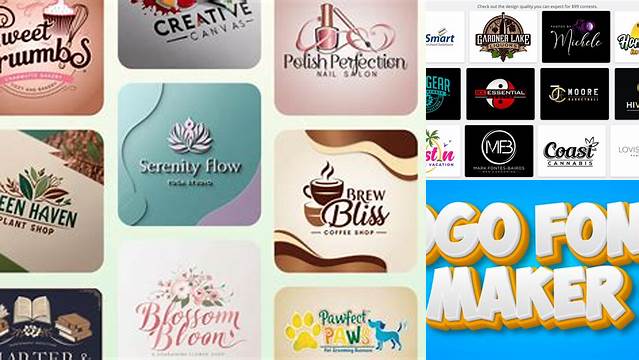
Best Free Logo Font Generator: Create Stunning Logos
Creating a logo can feel like a big deal, right? You want something that perfectly represents your brand, and a huge part of that is choosing the right font. But let's be real, not everyone has the budget for fancy design software or professional designers. That's where free logo font generators come in handy! They're a fantastic way to experiment with different typography styles and find the ideal font for your logo, all without spending a dime. We’re going to dive deep into the world of the best free logo font generators, showing you how to use them and offering tips to make your logo stand out.
1. Understanding the Importance of Font Choice in Logo Design
So, why is choosing the right font so crucial? Think of it this way: your font is the voice of your brand. It communicates personality, professionalism, and even the overall feel of your business. A playful, rounded font might be perfect for a children's brand, but it would look totally out of place for a serious financial institution. Choosing the right font helps create a strong and lasting impression on your audience. When diving into logo design, the importance of font choice cannot be overstated. Your font is not just a visual element; it's a crucial part of your brand's identity. The right font can convey the personality and values of your business. A font that is too casual for a formal business or too formal for a casual brand can create a disconnect with your target audience. Therefore, understanding the nuances of different fonts and how they can impact your brand perception is vital. From the sleek lines of sans-serif fonts to the elegant curves of serif fonts, each style brings a unique flavor to your logo. Choosing the right font ensures your logo is not only visually appealing but also communicates the right message. Think about how fonts like Helvetica communicate modernity and efficiency, while script fonts can add a touch of sophistication and personal touch. For example, a tech startup might opt for a clean, minimalist sans-serif font to project innovation and simplicity, while a luxury brand could choose a classic serif font to evoke tradition and elegance. By considering these factors, you can make an informed decision that aligns with your brand's identity and resonates with your target audience.
2. Top Free Online Logo Font Generators
Okay, let's get to the good stuff! There are tons of free online logo font generators out there, but some are definitely better than others. We're talking about tools that offer a wide variety of fonts, are easy to use, and give you options for customization. Some popular options include FontStruct, which lets you build your own fonts from scratch, and online logo makers that incorporate font selection as part of their design process. When looking for the best free online logo font generators, it's essential to consider a few key factors. First, the variety of fonts available is crucial. A good generator should offer a wide range of styles, from classic serif and sans-serif fonts to more modern and decorative options. This allows you to find a font that truly matches your brand's personality and style. Second, ease of use is paramount. The tool should be intuitive and straightforward, allowing you to quickly browse, select, and customize fonts without a steep learning curve. Features like font previews, size adjustments, and color options can significantly enhance the user experience. Third, the quality of the fonts matters. While many free generators offer a plethora of options, not all fonts are created equal. Look for generators that provide high-quality fonts that are well-designed and legible. Some popular platforms like Google Fonts, DaFont, and Font Squirrel offer an extensive library of free fonts that can be used with various logo generators. For example, FontStruct is a great option if you want to create a custom font from scratch, giving you complete control over the design. Canva and other online logo makers also incorporate font selection as part of their design process, making it easy to pair fonts with other design elements. By exploring these tools, you can find the perfect font to make your logo stand out.
3. FontStruct: Creating Custom Fonts for Your Logo
FontStruct is a super cool tool that lets you get really creative. It's like playing with digital building blocks to design your own fonts. If you have a specific vision in mind or want a truly unique font that no one else has, FontStruct is the way to go. This level of customization allows your logo to be completely one-of-a-kind. Diving deeper into FontStruct, it’s clear why this platform is a favorite for those seeking custom font solutions. Unlike many free logo font generators that offer pre-designed fonts, FontStruct provides a unique, hands-on approach. It empowers users to build fonts from geometric shapes, making it possible to create truly distinctive typefaces. This level of customization is invaluable for branding because it allows you to craft a font that perfectly aligns with your brand's identity. The platform’s grid-based editor is intuitive, making the font creation process accessible even for those without prior design experience. You can control every aspect of your font, from the thickness of the strokes to the curves and angles of each character. FontStruct's community also provides a wealth of inspiration and resources. Users can browse and download fonts created by others, which can serve as a starting point for your own designs or simply provide inspiration. Moreover, the platform supports exporting your custom fonts in various formats, ensuring compatibility with different design software and applications. Whether you're looking to create a bold, modern font or a whimsical, hand-drawn typeface, FontStruct gives you the tools to bring your vision to life. This level of creative control ensures that your logo will not only be visually appealing but also uniquely representative of your brand.
4. Google Fonts: A Vast Library of Free Fonts
Google Fonts is a treasure trove of typography! It's a massive library of free, open-source fonts that you can use for personal and commercial projects. The best part? It's super easy to access and use, and the fonts are all high-quality. This is a great starting point for finding the right font for your logo. Google Fonts stands out as a premier resource for free logo font generators due to its vast and diverse collection of typefaces. With hundreds of font families available, ranging from classic serifs to modern sans-serifs and everything in between, Google Fonts offers something for every brand identity. The fonts are not only free but also open-source, meaning they can be used for both personal and commercial projects without licensing restrictions. This makes Google Fonts an incredibly accessible option for startups, small businesses, and designers on a budget. One of the key advantages of Google Fonts is its ease of integration with web and design tools. You can seamlessly incorporate Google Fonts into your website, graphic design software, and even logo design platforms. This simplifies the design process and ensures consistency across all your branding materials. The quality of the fonts in Google Fonts is also noteworthy. Each typeface is carefully designed and optimized for readability across various screen sizes and devices. This is particularly important for logos, which need to look crisp and clear whether they are displayed on a large banner or a small mobile screen. Popular font families like Roboto, Open Sans, and Montserrat have become staples in the design world due to their versatility and legibility. Exploring Google Fonts allows you to experiment with different typographic styles and find the perfect font to convey your brand's message and personality.
5. DaFont: A Diverse Collection of Free Fonts
DaFont is another fantastic resource for finding free fonts. It boasts a massive collection of fonts, with a slightly more quirky and artistic vibe than Google Fonts. You'll find tons of unique and creative fonts here, perfect if you're looking for something a little different. Just be sure to check the licensing terms for each font, as some are only free for personal use. DaFont is a widely recognized platform in the realm of free logo font generators, celebrated for its expansive and eclectic collection of fonts. Unlike some curated libraries, DaFont embraces a more open approach, featuring contributions from a diverse range of designers. This results in a vast array of font styles, from classic and elegant to quirky and experimental, ensuring that there is something for every design aesthetic. One of DaFont's key strengths is its user-friendly interface, which allows you to easily browse and filter fonts based on categories like sans-serif, serif, script, and decorative. This makes it simple to narrow down your search and find the perfect font for your logo. The platform also offers a preview feature, allowing you to see how your text will look in each font before you download it. However, it's crucial to pay close attention to the licensing terms of each font on DaFont. While many fonts are free for personal use, some may require a commercial license for business applications. This is essential to ensure that you are using the font legally and avoiding any potential copyright issues. Despite this caveat, DaFont remains a valuable resource for designers and business owners looking for unique and creative fonts to enhance their logos. The platform’s diverse selection and easy-to-navigate interface make it a go-to destination for typographic inspiration.
6. Font Squirrel: High-Quality Free Fonts for Commercial Use
Font Squirrel is a great option if you need fonts for commercial projects. All the fonts on Font Squirrel are free for commercial use, which means you can use them in your logo without worrying about licensing issues. They also have a curated selection of high-quality fonts, so you're sure to find something that looks professional and polished. Font Squirrel is a standout resource among free logo font generators, particularly for businesses and designers focused on commercial applications. Unlike some platforms where licensing can be a complex issue, Font Squirrel offers a curated selection of fonts that are all available for commercial use. This means you can confidently use any font from their library in your logo and other branding materials without worrying about legal restrictions. The platform prides itself on offering high-quality fonts that meet professional standards. Each font is carefully reviewed and selected, ensuring that it is well-designed, legible, and suitable for a range of design projects. This focus on quality makes Font Squirrel a reliable source for finding fonts that will elevate your logo's aesthetic. Font Squirrel's website is user-friendly, with a clean and intuitive interface that makes it easy to browse and discover new fonts. You can filter fonts by various categories, such as serif, sans-serif, script, and display, making it simple to narrow down your search. The platform also provides useful information about each font, including its designer, license, and character set. In addition to its font library, Font Squirrel offers a variety of tools and resources for designers, such as a font identifier and a web font generator. These tools can be incredibly helpful for finding and implementing the perfect font for your logo. For those who prioritize quality and commercial usability, Font Squirrel is an invaluable resource for finding top-notch free fonts.
7. Canva: A User-Friendly Logo Design Platform with Free Fonts
Canva is more than just a font generator; it's a complete graphic design platform. It's incredibly user-friendly, even if you don't have any design experience. Canva offers a ton of free templates, graphics, and, of course, fonts that you can use to create your logo. The drag-and-drop interface makes it super easy to customize your design. Canva stands out in the landscape of free logo font generators by offering a comprehensive design platform that goes beyond simple font selection. It's an excellent choice for individuals and businesses looking for an all-in-one solution for logo creation. Canva’s user-friendly interface and drag-and-drop functionality make it accessible to users of all skill levels, even those with no prior design experience. The platform offers a wide range of free templates, graphics, and fonts that can be easily customized to create a unique logo. Canva's font library is extensive, featuring a variety of styles from classic to contemporary. You can easily browse fonts, preview them in your design, and adjust their size, color, and spacing. The platform also integrates seamlessly with Google Fonts, giving you access to an even wider selection of typefaces. In addition to its font options, Canva provides a suite of design tools that allow you to add shapes, icons, and other graphic elements to your logo. You can also upload your own images and incorporate them into your design. Canva’s collaborative features make it easy to work on logo designs with team members or clients. You can share your designs, gather feedback, and make revisions in real-time. While Canva offers a free plan with a generous set of features, it also has a paid plan that provides access to additional templates, graphics, and fonts. However, the free plan is often sufficient for creating a professional-looking logo, especially for those just starting out. Canva’s combination of ease of use, extensive font library, and comprehensive design tools makes it a top choice for anyone looking to create a logo without breaking the bank.
8. Choosing the Right Font Style for Your Brand
Okay, so you've got access to all these amazing free font generators, but how do you actually choose the right font? First, think about your brand's personality. Are you serious and professional? Fun and playful? Elegant and sophisticated? Your font should reflect that. Consider whether a serif, sans-serif, script, or display font best represents your brand's character. When navigating the world of free logo font generators, one of the most critical decisions is choosing the right font style for your brand. Your font is a visual representation of your brand's personality and values, so it's essential to select a typeface that aligns with your overall brand identity. To start, consider the four main categories of fonts: serif, sans-serif, script, and display. Serif fonts, with their small decorative strokes at the end of each letter, often convey a sense of tradition, authority, and elegance. They are a good choice for brands that want to project a classic and reliable image. Sans-serif fonts, which lack these strokes, tend to look more modern, clean, and minimalist. They are often used by tech companies and startups aiming to communicate innovation and simplicity. Script fonts, which mimic handwriting, can add a personal and elegant touch to a logo. However, they should be used sparingly and with caution, as they can sometimes be difficult to read in small sizes. Display fonts are the most decorative and expressive category, offering a wide range of styles from bold and playful to quirky and unconventional. They are best suited for brands that want to make a strong visual statement and stand out from the crowd. To choose the right font style for your brand, consider your target audience, your industry, and the overall message you want to convey. Research how other brands in your industry use fonts and identify those that resonate with your brand's personality. Ultimately, the right font style will enhance your logo's visual impact and help you communicate your brand's unique identity.
9. Serif Fonts: Conveying Tradition and Authority
Serif fonts are those classic fonts with the little